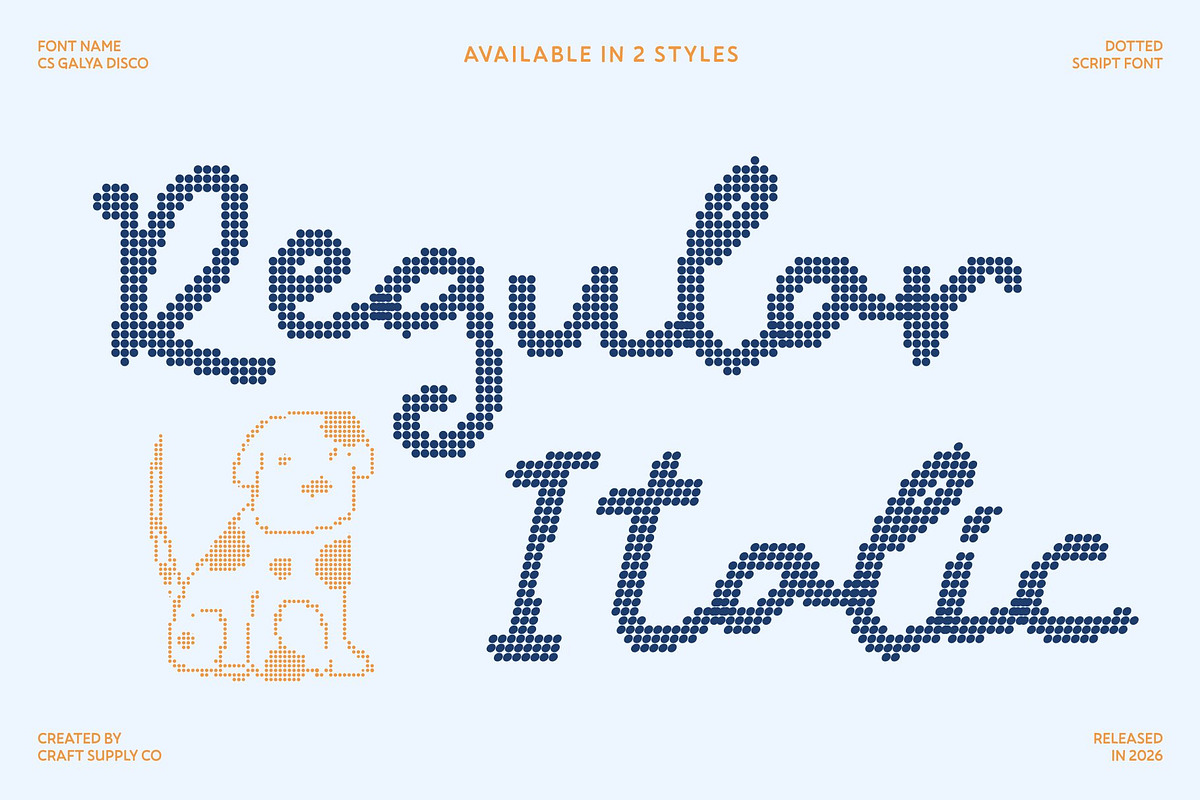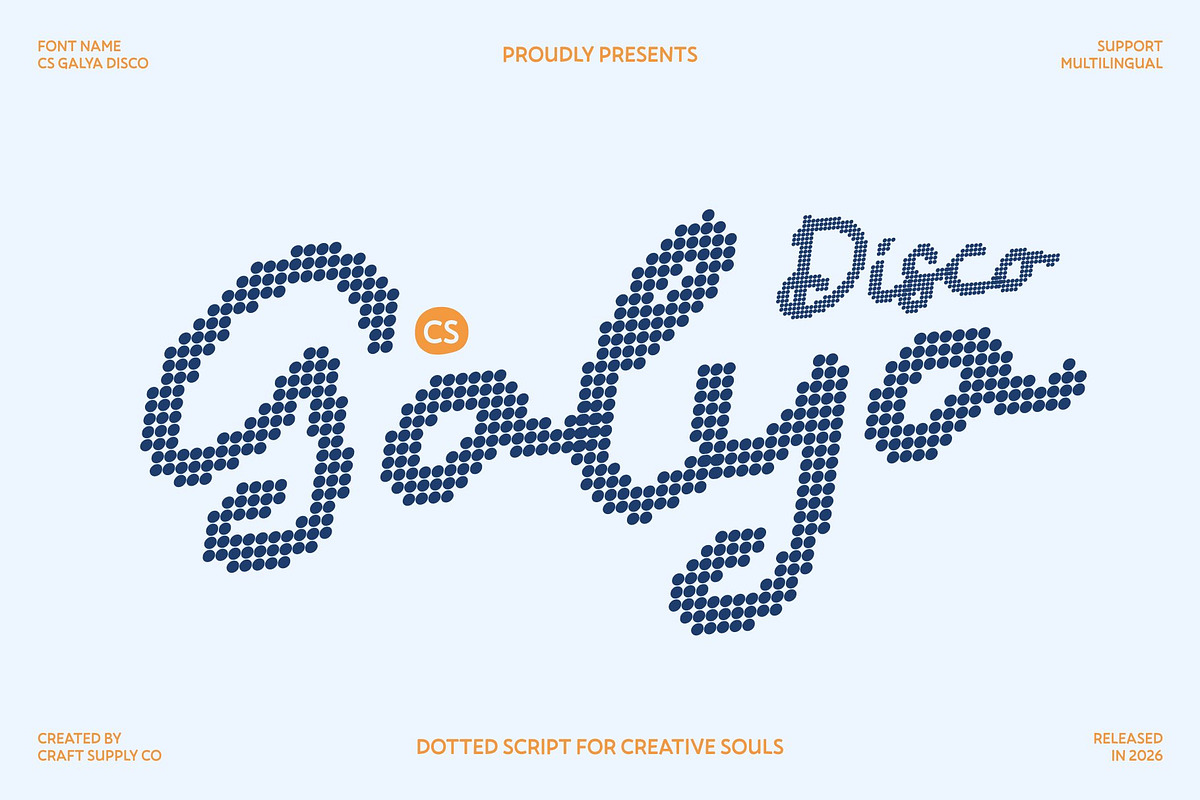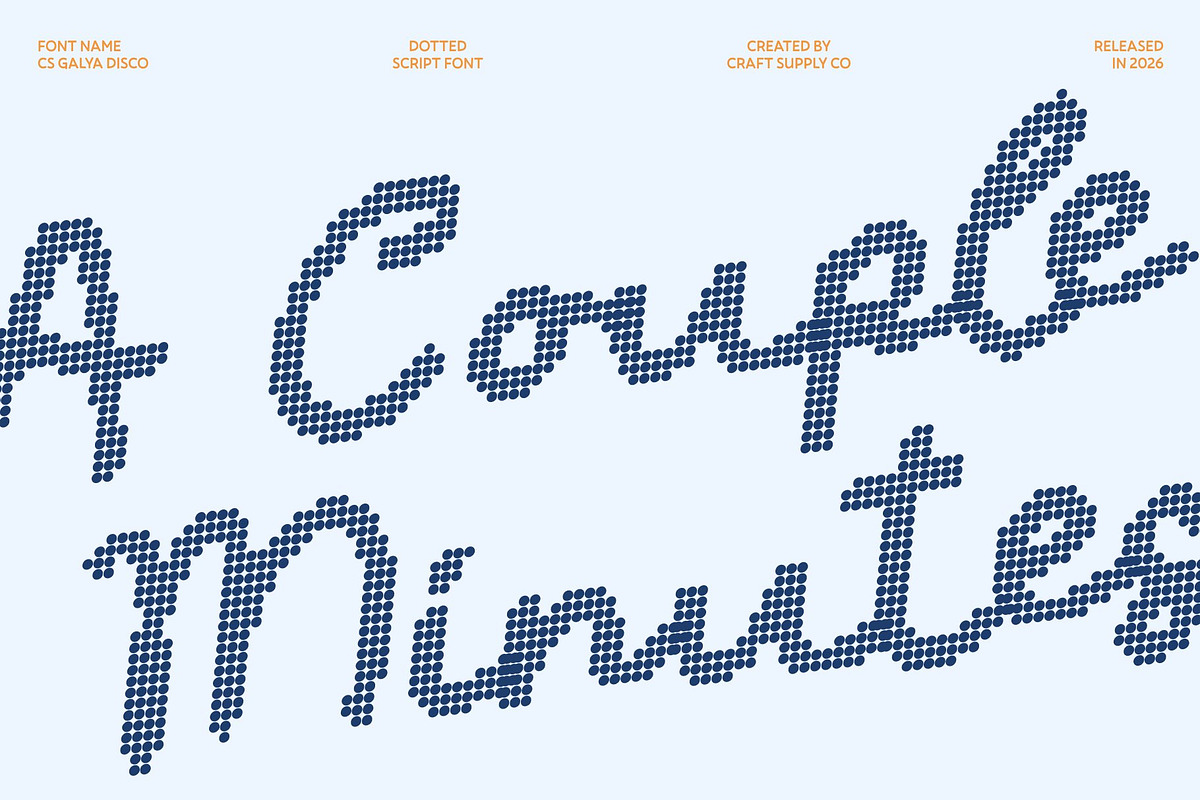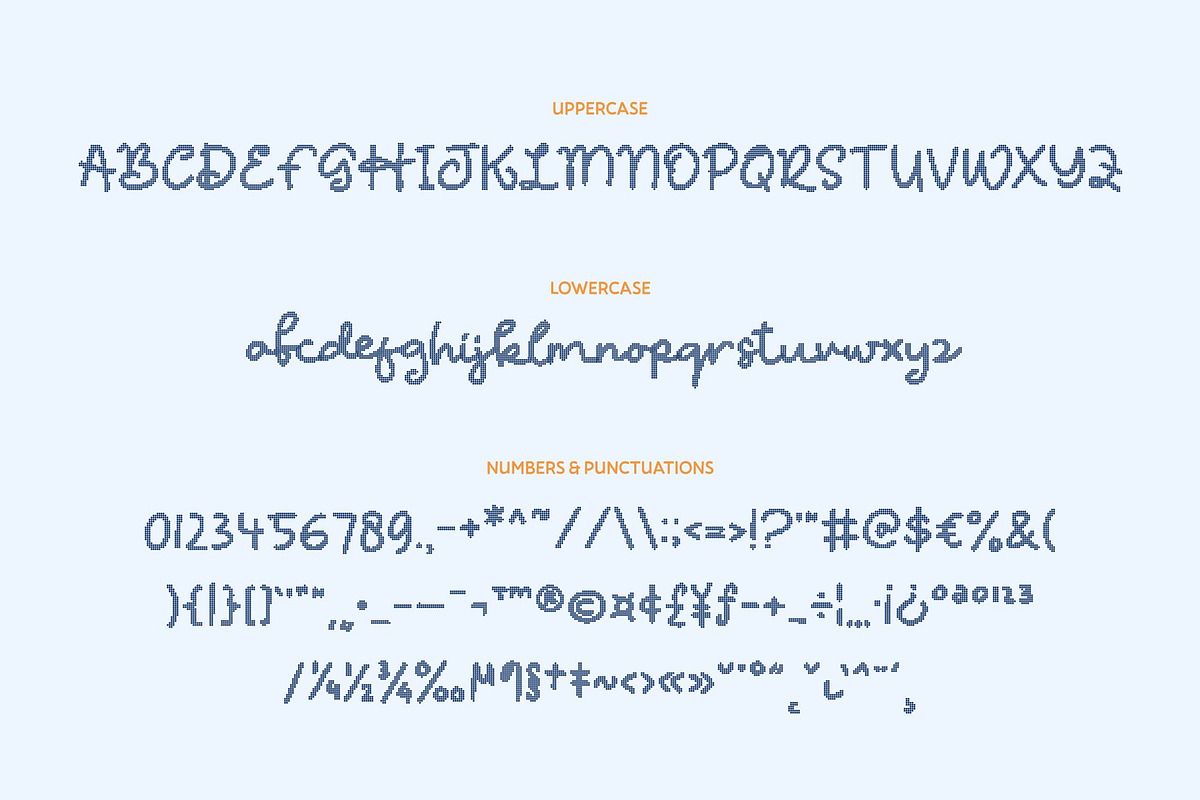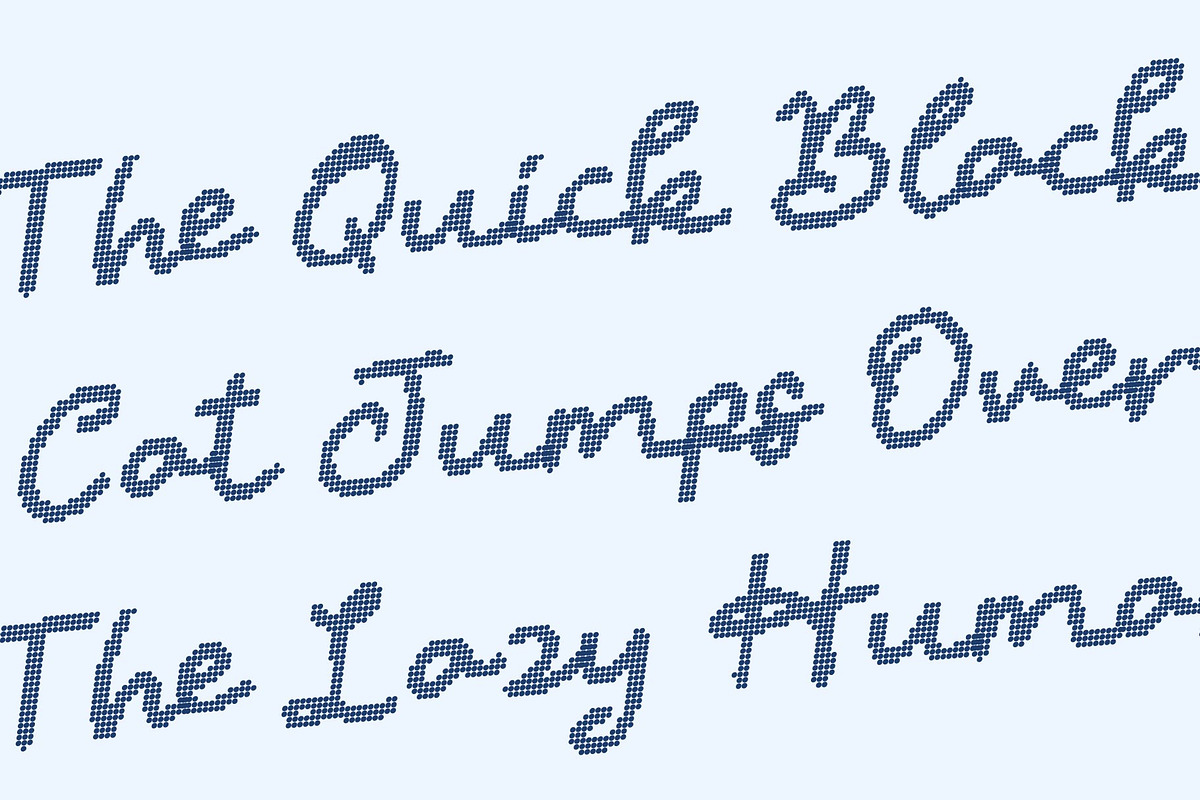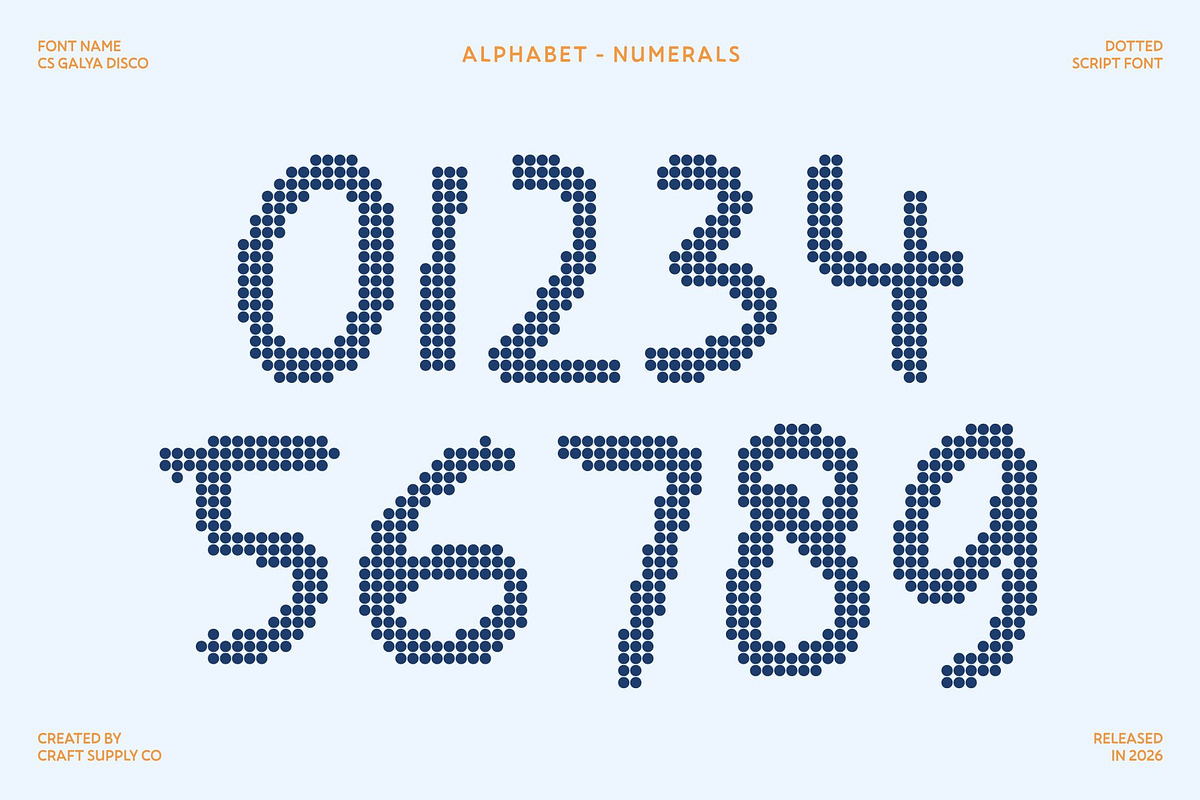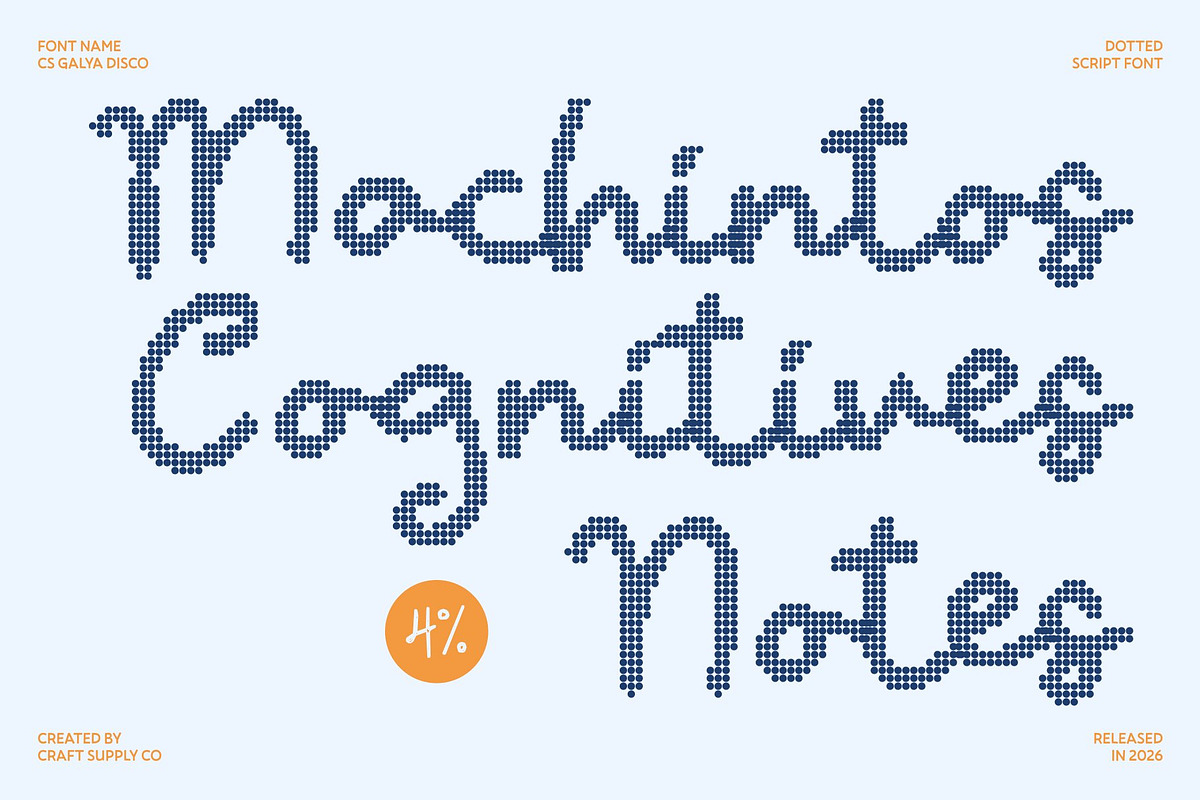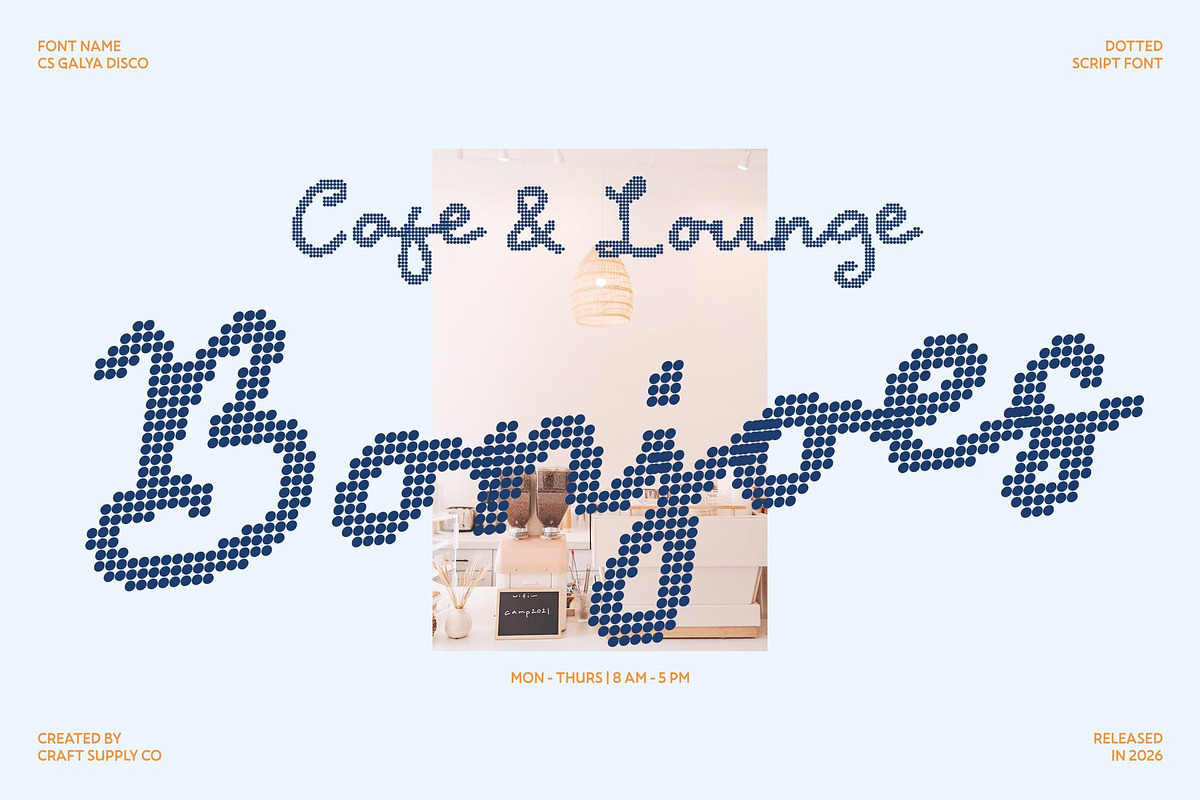
CS Galya Disco
CS Galya Disco – Sweet Script with Sparkling Disco Charm
Sweet Script Style with Happy, Girly Personality This is a delightful script font that radiates sweetness, joy, and playful femininity. Its flowing handwritten curves bring a lighthearted and cheerful personality, while the disco-inspired dotted style adds a sparkling glow that feels lively and celebratory. The result is a charming typeface that instantly brightens any design.
Playful Curves with Unique Disco Style Each letter features smooth, rounded curves enhanced with radiant dot details, giving the font a distinctive disco-inspired look. The dotted construction creates a sense of rhythm and movement, as if every word is dancing across the page under shimmering lights. This playful texture blends cuteness with vibrant visual energy.
Fresh and Fun Expression for Sunny Designs This font brings a bright, upbeat atmosphere to creative projects. Its cheerful style works beautifully in colorful compositions, making designs feel warm, vibrant, and full of positive energy. The combination of sweet script flow and sparkling detail creates a look that feels modern, fun, and memorable.
Perfect for Summer Branding, Menus, and Vacation Projects Ideal for summer branding, café menus, travel promotions, beach-themed graphics, and playful social media posts, this font adds a joyful personality to every layout. It also shines in invitations, lifestyle branding, and festive event designs that celebrate fun and creativity.
CS Galya Disco Regular
CS Galya Disco Italic